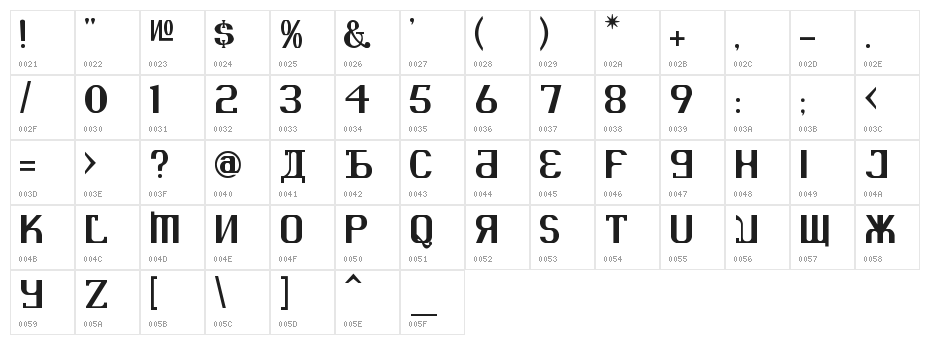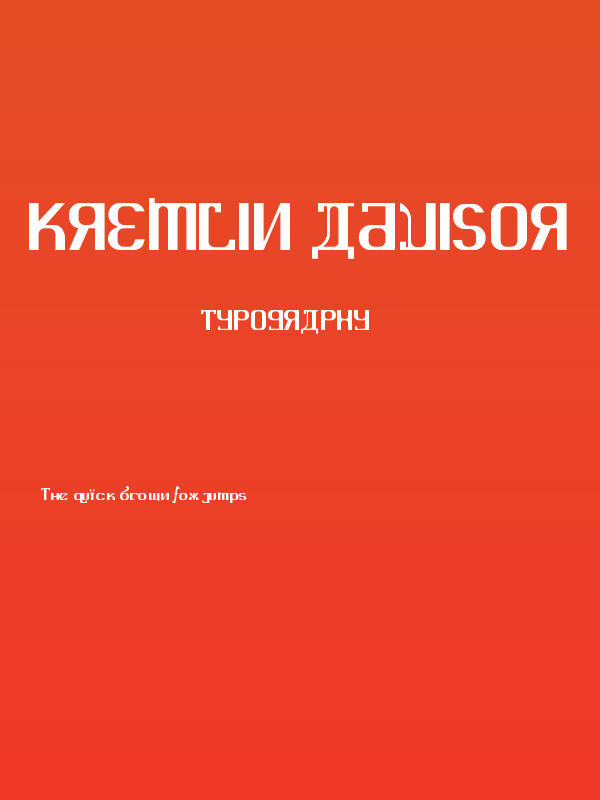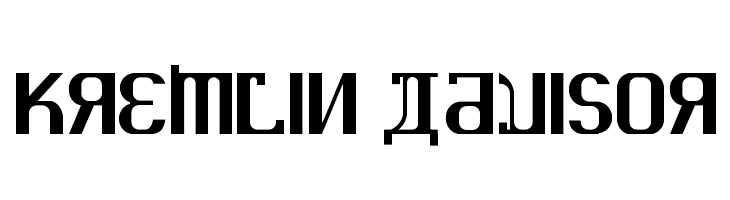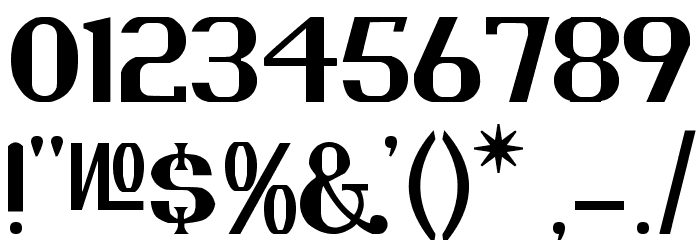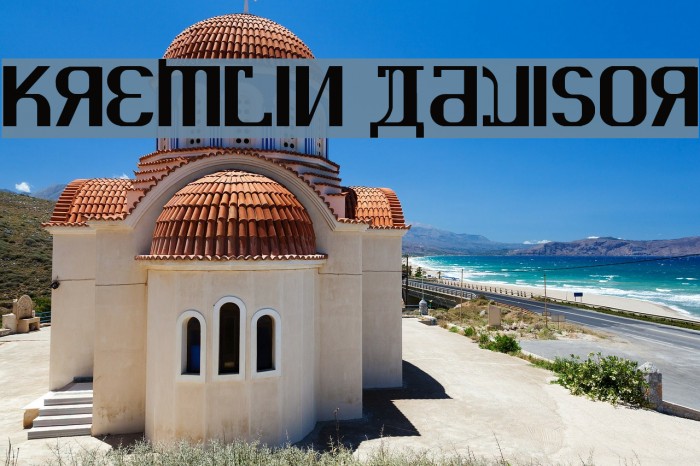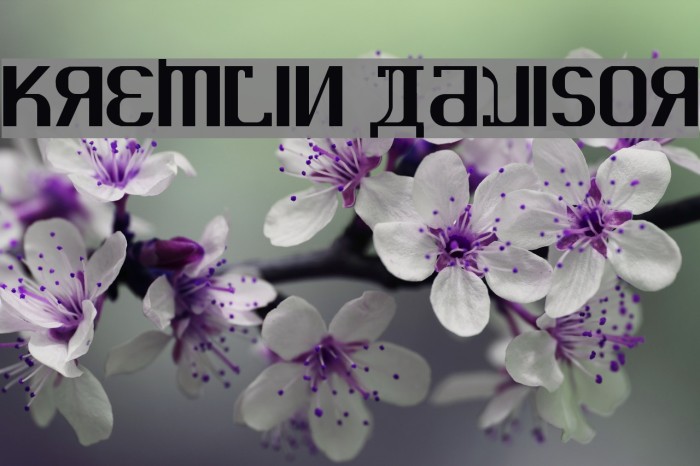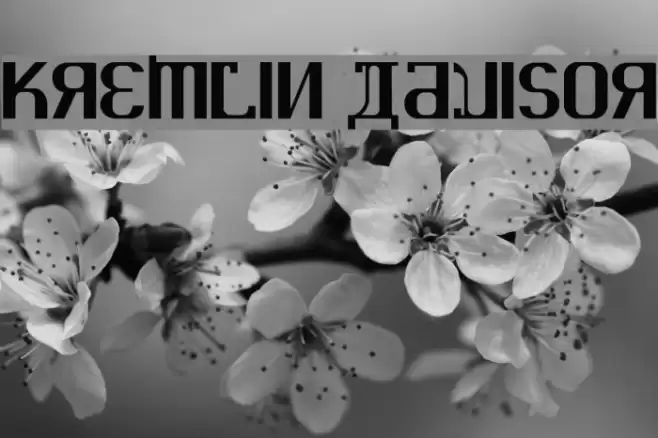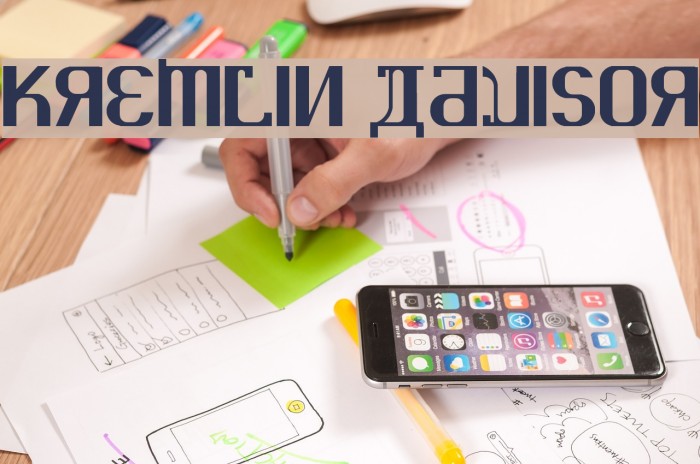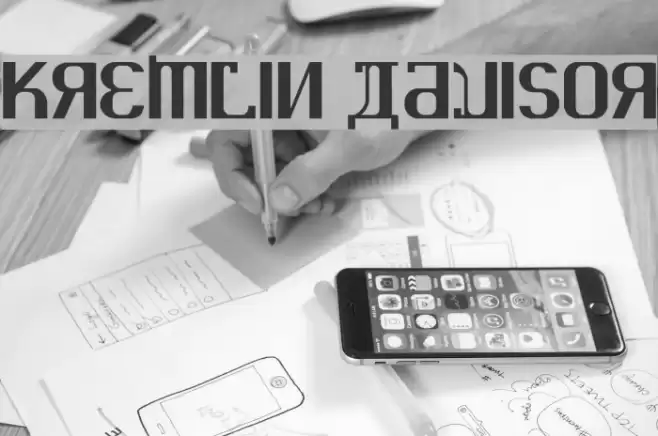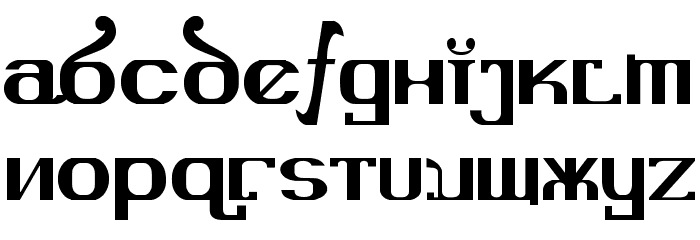
KREMLIN ADVISOR Font
KREMLIN ADVISOR Description
This font features a bold and striking design with a strong geometric influence. The uppercase letters exhibit a unique blend of sharp angles and curves, creating a sense of movement and energy. The lowercase letters maintain this dynamic style, with some characters incorporating unexpected flourishes that add to the overall aesthetic. The numerals are consistent with the bold style, offering clear readability while maintaining the font's distinctive character. Special characters are designed with the same attention to detail, ensuring a cohesive look across all glyphs. This font's boldness and unique style make it ideal for projects that require a strong visual impact.
| Proposed Projects | Ideal for branding, poster design, and headlines that require a strong visual impact. |